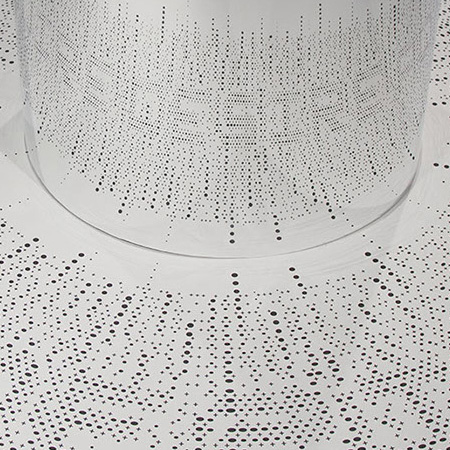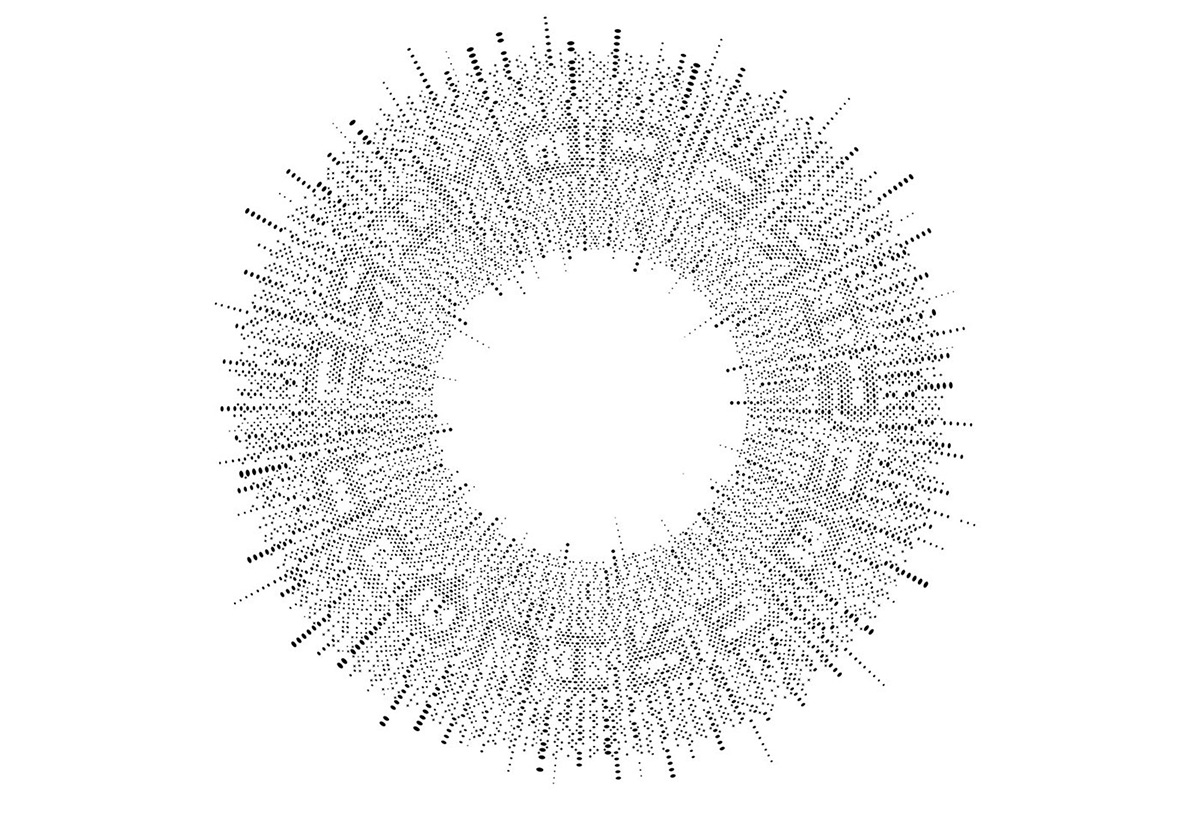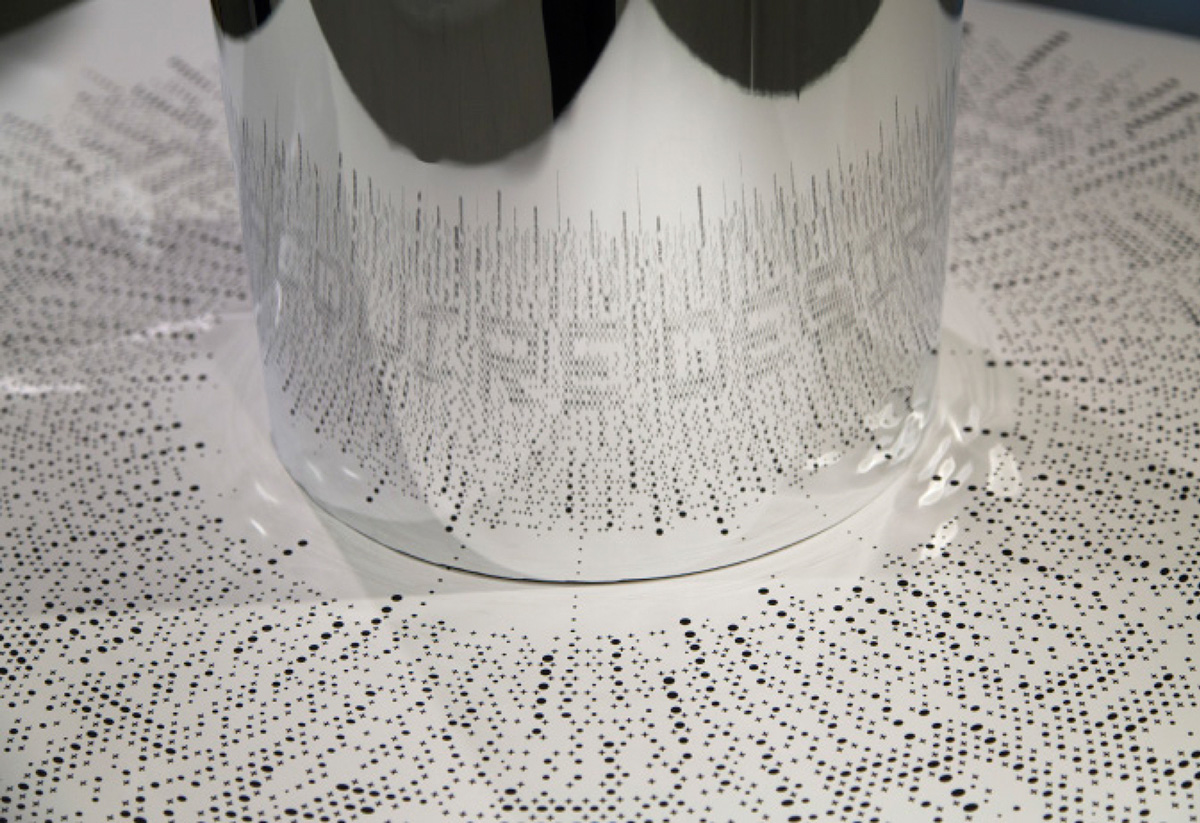
Hitesh Singhal’s subtly hedonistic typographic installation
A man inspired by history and religion, Singhal created a type installation as a Graduate School student (Graphic Design MFA) from MICA, Baltimore. “I created a shrine that uses anamorphic principles to reveal the message of a Hedonist. The shrine when looked through the mirror, actually preaches hedonism” he explains.
“In an age where we deny ourselves nothing and refuse to make any personal sacrifice, the hedonist monk lives his life in dichotomy. The monk achieves salvation by dedicating his life to others, yet the hedonist seeks freedom through self-satisfaction. Will his path lead to transcendence, or travesty? The installation is the shrine of the hedonist monk. It uses the vernacular of a monk but communicates the ideology of a hedonist. The monk meditates on words Admire, Desire, Acquire”.